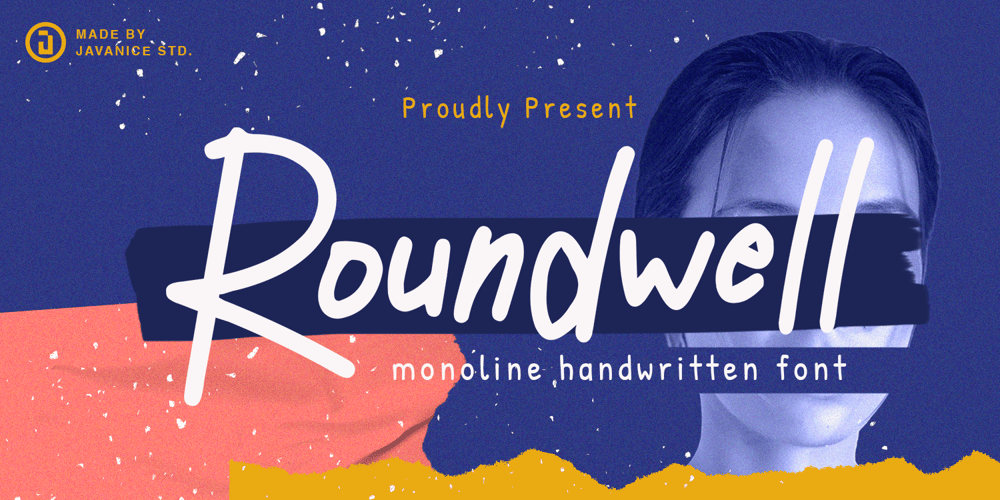
Roundwell Font Family was designed by Revsani Hisyam Wardhana and published by Javanice Studio. Roundwell contains 1 styles and family package options. Introducing Roundwell by Javanice Studio Roundwell is A Moniline Handwritten Font Roundwell is perfect for branding project, apparel, labels, magazines, books, greeting / wedding cards, packaging, fashion, make up, stationery, and any type of advertising purpose or just used to express words above the background. This font includes multilingual support. Enjoy the font, feel free to comment or feedback, send me PM or email.